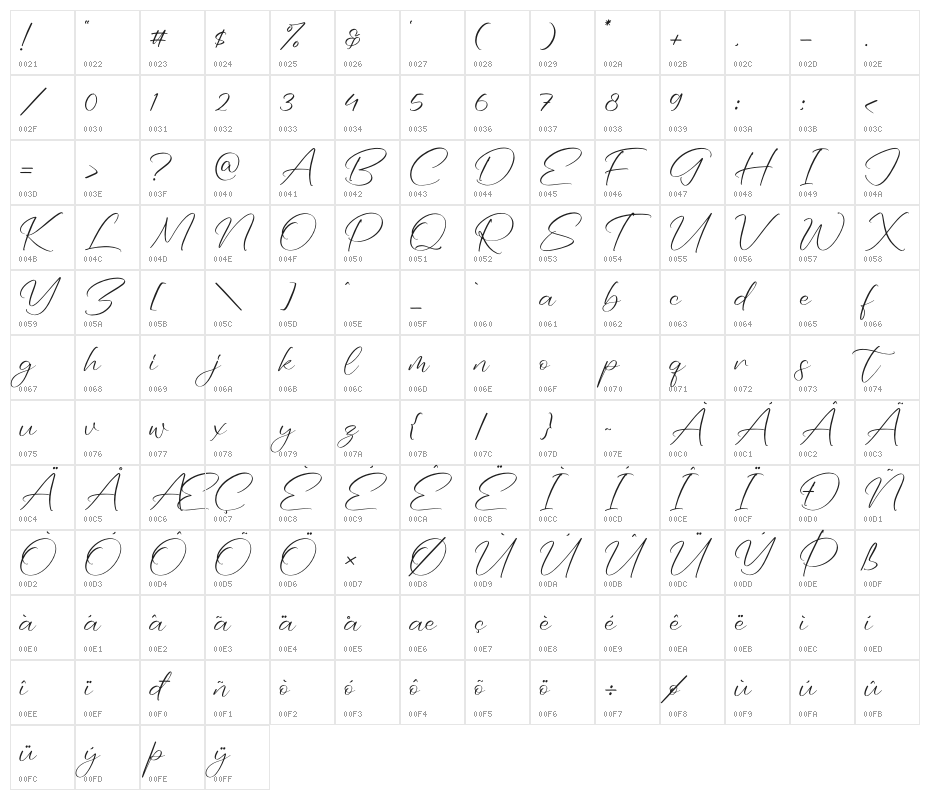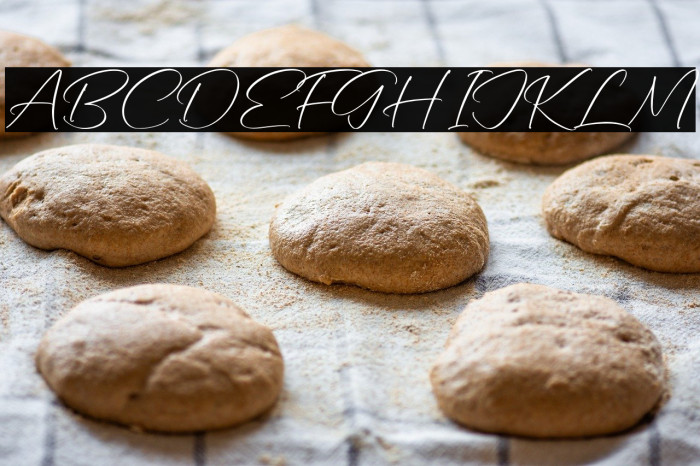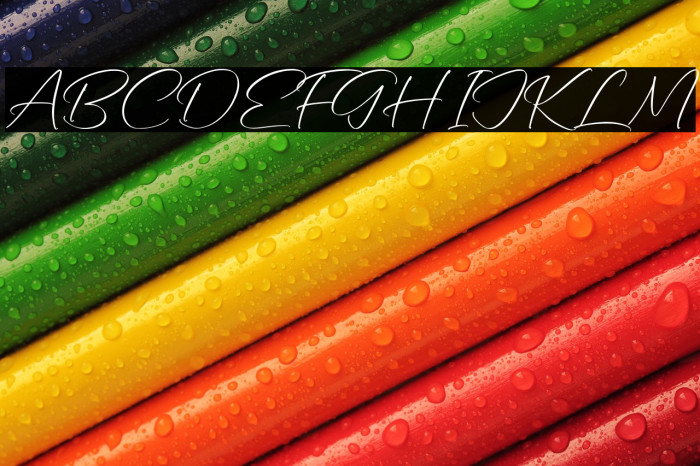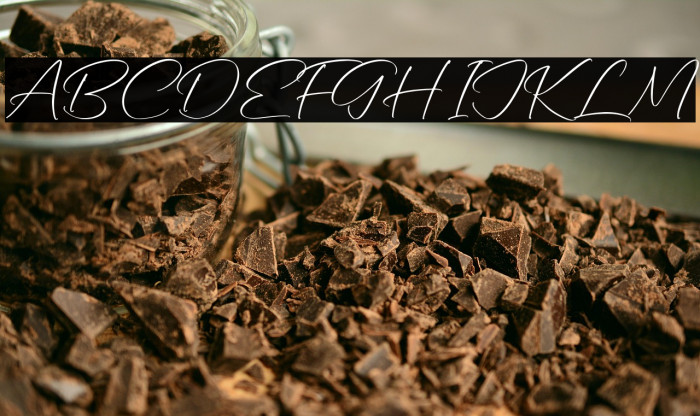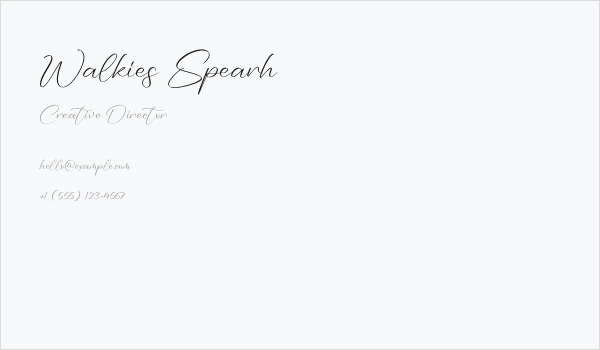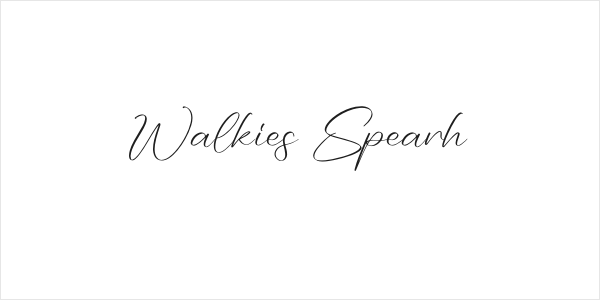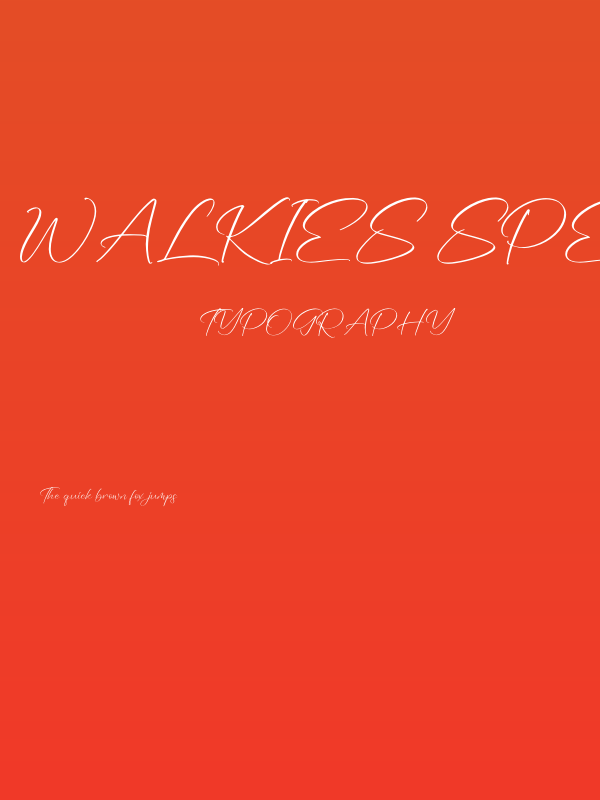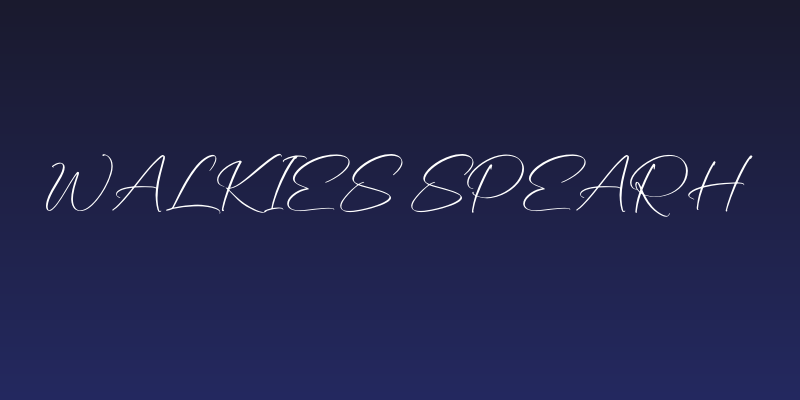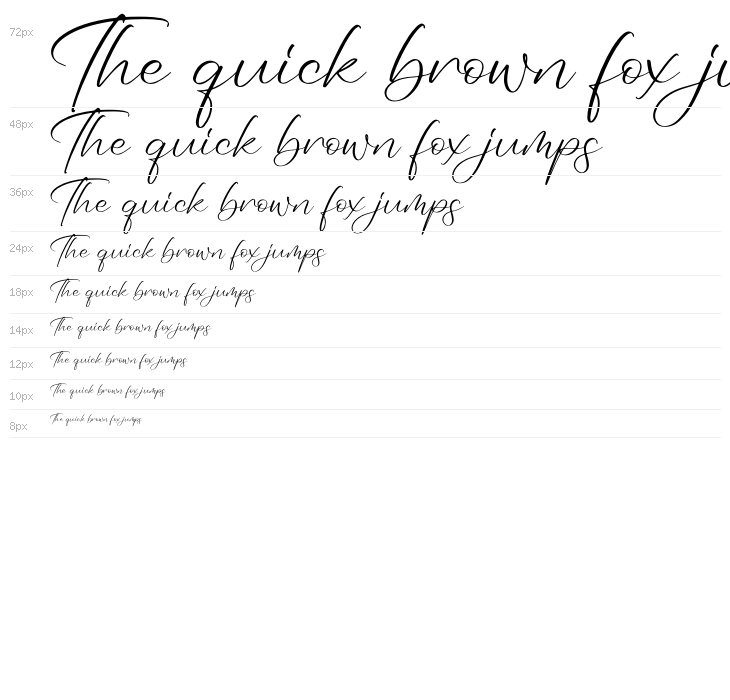
Walkies Spearh Font
Walkies Spearh Description
This elegant script font exudes a sense of sophistication and fluidity, characterized by its flowing, cursive strokes and graceful curves. Each letter seamlessly connects to the next, creating a harmonious and continuous line that mimics the fluidity of natural handwriting. The uppercase letters are slightly more ornate, with gentle flourishes that add a touch of flair, while the lowercase letters maintain a consistent and smooth appearance. The numerals and special characters are crafted with the same attention to detail, ensuring a cohesive look across all text elements. This font's delicate lines and refined style make it ideal for projects that require a personal and artistic touch.